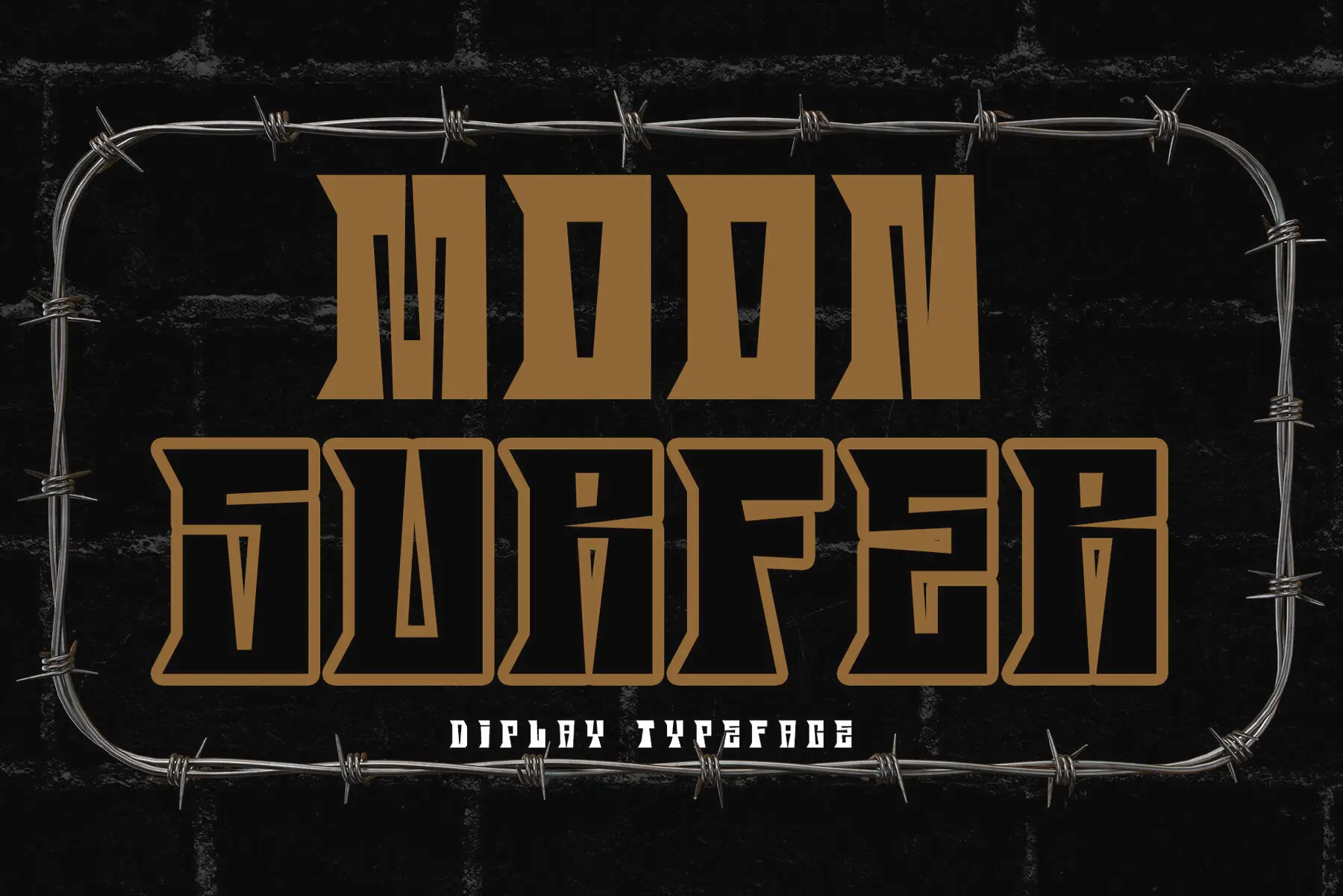
Moon Surfer Font
Moon Surfer is an engaging and dynamic comic display font from Dandesign Studio. Bursting with energy and creativity, this typeface is ideal for designs that require a playful and bold aesthetic. Whether you're working on posters, logos, children's books, cartoon titles, packaging, merchandise, or social media graphics, Moon Surfer brings a lively and unique touch. Its comic-inspired style offers both readability and personality, making it perfect for a wide range of digital and print projects. Ideal for kid-centric, entertainment, and lifestyle branding, this font infuses a cheerful and adventurous spirit into your work. Its quirky and expressive details are designed to capture the viewer's attention instantly.Moon Surfer